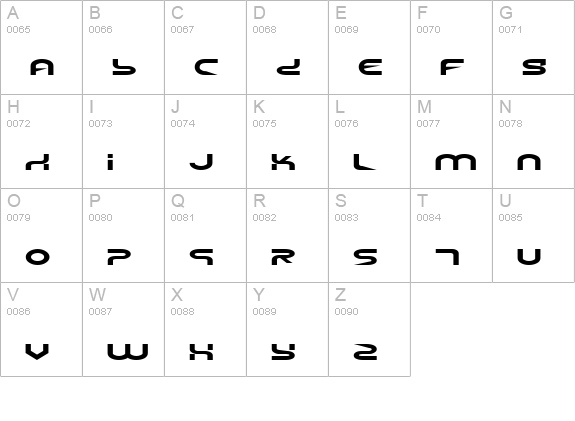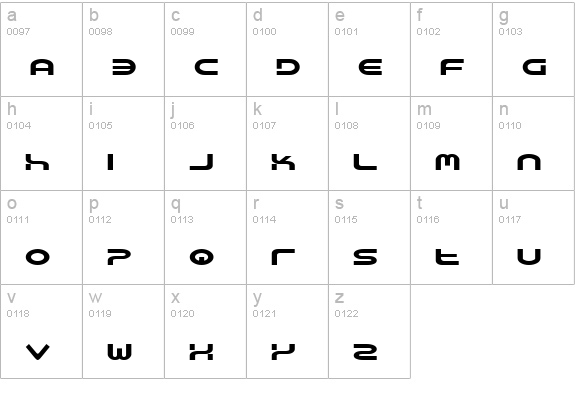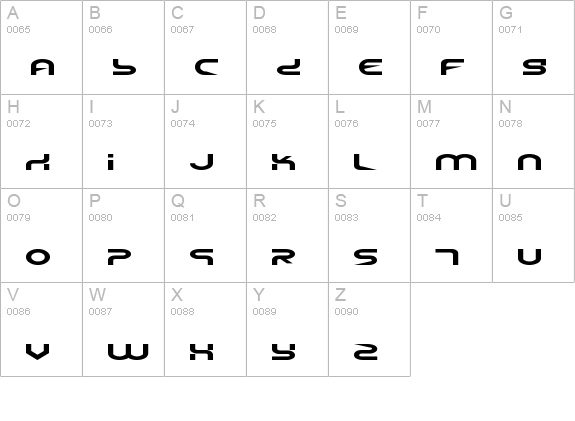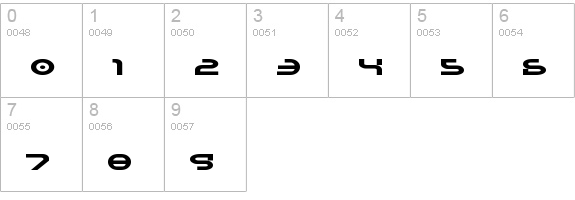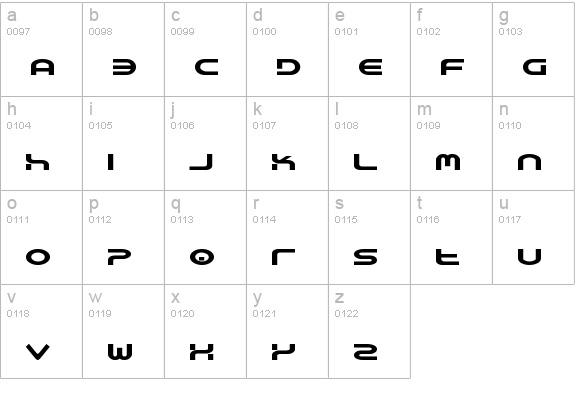
Yukon Tech Expanded is a distinctive, extended-width variant in the Yukon typeface family \xE2\x80\x94 well suited to design and typography projects.
Introducing Yukon Tech Expanded font, a modern and versatile typeface designed for various design projects. This sleek and stylish font features a unique expanded design that adds a touch of sophistication to any text or graphic element. With its clean lines and sleek curves, Yukon Tech Expanded is perfect for branding, advertising, headlines, and more. One of the best things about Yukon Tech Expanded font is that it is completely free to download. Yes, you read that right - this high-quality font is freely available for you to use in your projects. Simply head over to FontsMarket.com to download Yukon Tech Expanded and start creating stunning designs today. Don't miss out on this amazing opportunity to enhance your work with a top-notch font that won't cost you a thing. Unlock your creativity with Yukon Tech Expanded font now!